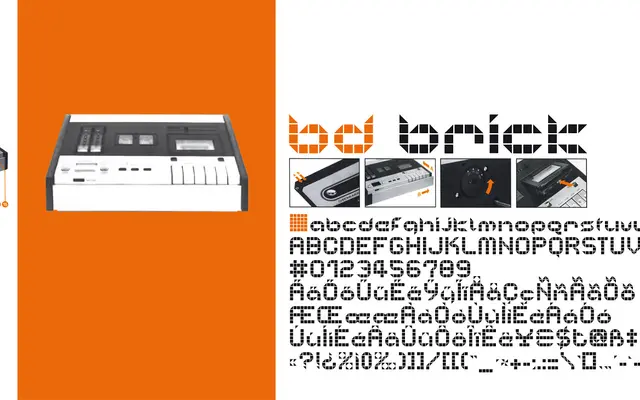
BD Brick
Type Different · 1996
A single-weight display face born from 1996 Swiss club graphics, built on modular brick-like letterforms and updated twice since its original release.
Originally drawn for a Saturday night house music event in Biel/Bienne, Switzerland, BD Brick carries the visual energy of 1990s club culture in its tight, block-constructed letterforms. The typeface received updates in 2007 and 2022, broadening its character set to cover Latin Extended languages across Europe and Africa. With only one style available, it suits headline and logotype work where a chunky, period-specific geometry is the point.
A single-weight display face with a modular, block-like construction originating from club culture graphic design, placing it firmly in the display category with a geometric character.